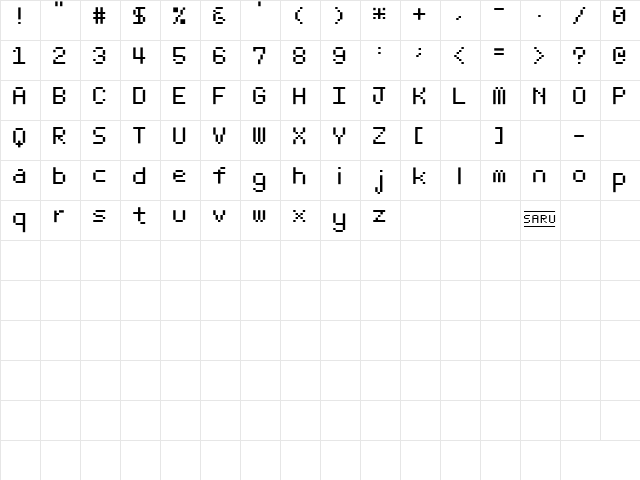
Complete Bit Light10 (sRB) Regular glyph index. Displaying only characters natively supported by Bit Light10 (sRB) Regular font.
Bit Light10 (sRB) is a composed and adaptable typeface that performs quietly and consistently across a wide range of design contexts. Its slender proportions lend an understated elegance to any composition.